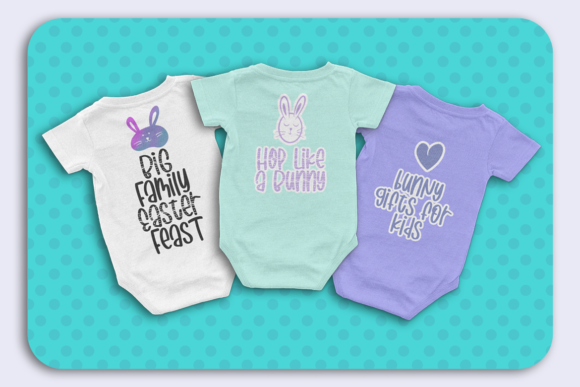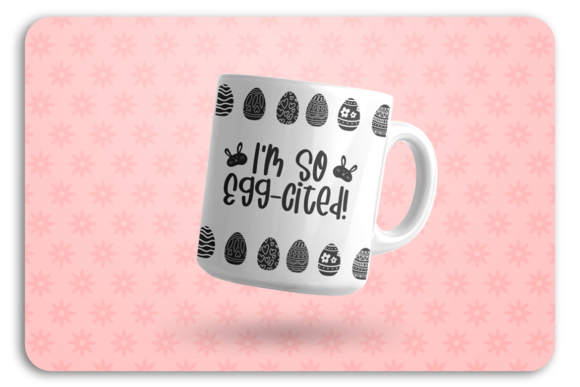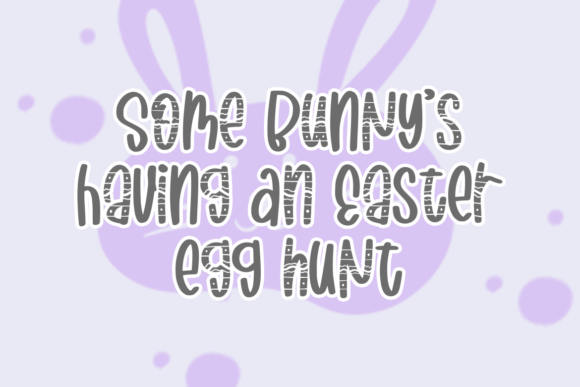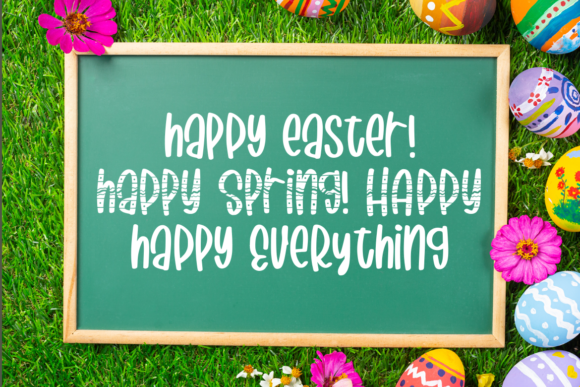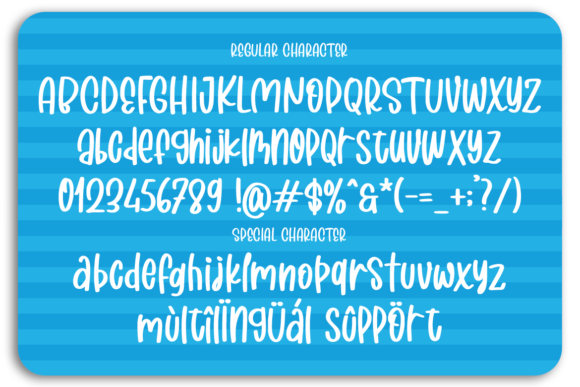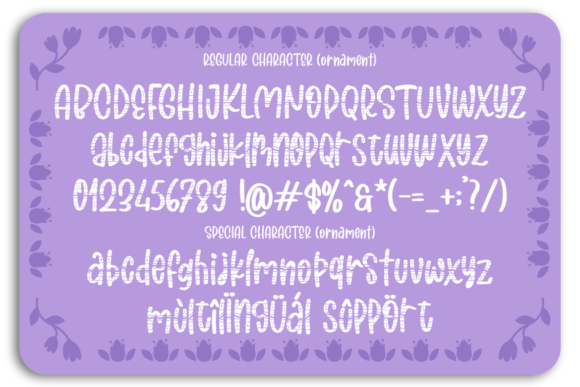
Introducing Blaster Easter Font: The Perfect Addition to Your Easter and Spring Crafting Projects
Are you looking for a font that can add a playful and smooth touch to your Easter and spring crafting ideas? Look no further than the Blaster Easter Font! This casual and handwritten font is designed to make your projects stand out, and with its PUA encoding, you can easily access all the glyphs and swashes you need.
What Makes Blaster Easter Font So Special?
Blaster Easter Font is a unique and creative font that is perfect for designers and crafters who want to add a personal touch to their projects. Its playful feel and smooth lines make it ideal for a variety of crafting ideas, from Easter cards and decorations to spring-themed projects and beyond.
One of the standout features of Blaster Easter Font is its PUA encoding. This means that you can access all the glyphs and swashes with ease, allowing you to customize your projects and make them truly unique. Whether you’re creating a handmade Easter card or a spring-themed craft, this font is sure to make your project stand out.
Perfect for Easter and Spring Crafting Projects
Easter and spring are just around the corner, and with Blaster Easter Font, you’ll be able to create projects that are both fun and festive. From Easter eggs and bunnies to spring flowers and more, this font is perfect for any project that requires a playful and creative touch.
Here are just a few ideas for using Blaster Easter Font in your Easter and spring crafting projects:
- Easter cards and invitations: Use Blaster Easter Font to create custom Easter cards and invitations that are sure to impress.
- Easter decorations: Add a personal touch to your Easter decorations with custom signs, banners, and more featuring Blaster Easter Font.
- Spring crafts: From flower crowns to spring-themed journals, Blaster Easter Font is perfect for any spring craft project.
Why Designers and Crafters Love Blaster Easter Font
Blaster Easter Font is a versatile and easy-to-use font that is perfect for designers and crafters of all skill levels. Here are just a few reasons why:
- Easy to use: With its PUA encoding, Blaster Easter Font is easy to use and customize, even for those with limited design experience.
- Playful feel: The playful feel of Blaster Easter Font makes it perfect for creating fun and festive projects.
- High-quality design: Blaster Easter Font is designed with high-quality lines and smooth curves, making it perfect for both digital and print projects.
Tips for Using Blaster Easter Font in Your Projects
Here are a few tips for using Blaster Easter Font in your Easter and spring crafting projects:
- Experiment with different colors: Blaster Easter Font looks great in a variety of colors, so don’t be afraid to experiment and find the perfect hue for your project.
- Pair with other fonts: Blaster Easter Font pairs well with other fonts, so try combining it with a bold font for a fun and playful look.
- Use glyphs and swashes: With its PUA encoding, Blaster Easter Font offers a range of glyphs and swashes that you can use to customize your projects and make them truly unique.
Blaster Easter Font is a fun and playful font that is perfect for Easter and spring crafting projects. With its smooth lines, playful feel, and PUA encoding, it’s easy to use and customize. Whether you’re a designer or crafter, Blaster Easter Font is sure to become a go-to font in your collection. So why wait? Download Blaster Easter Font today and start creating your own unique Easter and spring crafting projects!